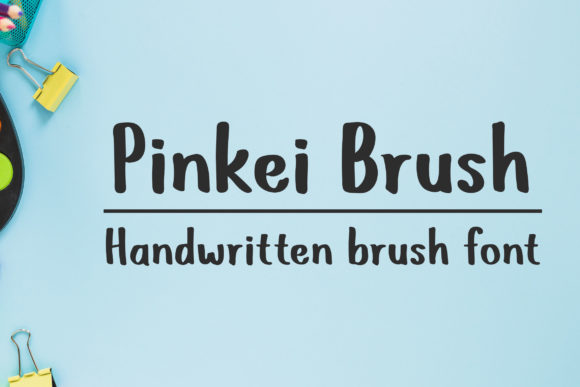
Prepare to be captivated by Pinkei Brush Font, an exquisite creation from Dasagani that will add a touch of enchantment to your designs. This enchanting script font boasts a timeless handwritten style, radiating an endearing and authentic aura. Whether you're a seasoned designer or new to the art, Pinkei Brush Font is your perfect companion, ready to transform your creative visions into captivating realities.
Immerse yourself in the world of Pinkei Brush Font, where imagination knows no bounds. Let your creativity flourish as you craft stunning logos, eye-catching social media posts, and heartfelt invitations that leave a lasting impression. This versatile font is a treasure trove of possibilities, perfect for adding a personal touch to your branding, greeting cards, and even handwritten notes.
With Pinkei Brush Font, you hold the key to unlocking a world of artistic expression. Its graceful strokes and playful charm will infuse your designs with a touch of whimsy and delight. Let your imagination soar as you create designs that speak to the heart, evoking emotions and captivating your audience.
Pinkei Brush Font is not just a font; it's an invitation to embark on a creative journey, to explore the depths of your imagination and bring your artistic dreams to life. Experience the joy of creating designs that resonate with your audience, leaving them enchanted and yearning for more.